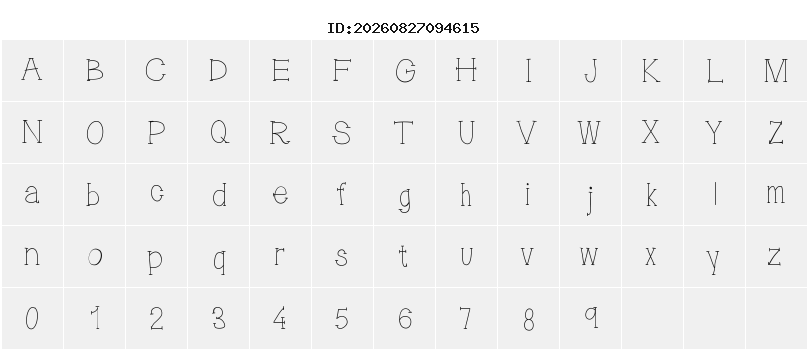
About 5PM.ttf
5PM.ttf is a modern, elegant sans-serif font designed for ultimate readability and visual harmony. Perfect for branding, headlines, web design, and print materials.